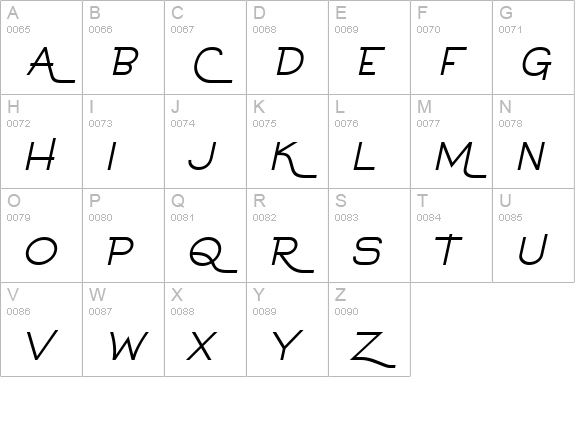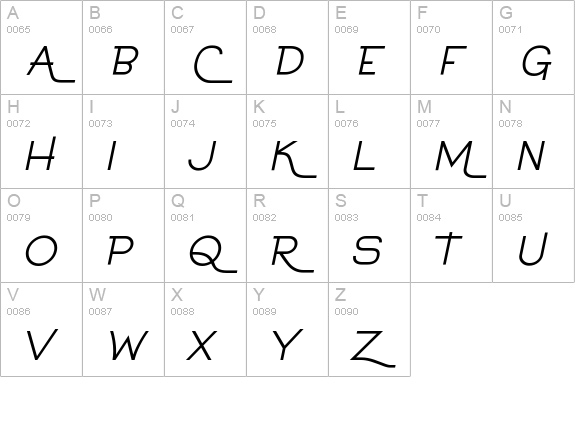
Calamity Teen BTN BoldOblique Font Details
Calamity Teen BTN BoldOblique is a stylish and eye-catching font that exudes a sense of boldness and playfulness. With its unique blend of boldness and elegance, this font is perfect for making a statement in your designs. The slanted italic design adds a touch of flair and sophistication, making it ideal for projects that require a touch of drama. What sets Calamity Teen BTN BoldOblique apart is that it is available for free download at FontsMarket.com. This means that you can easily access this striking font and use it in your projects without any cost. Whether you're working on a poster, logo, or any other design project, Calamity Teen BTN BoldOblique is sure to make a lasting impression. Download it today and elevate your designs with this captivating font.